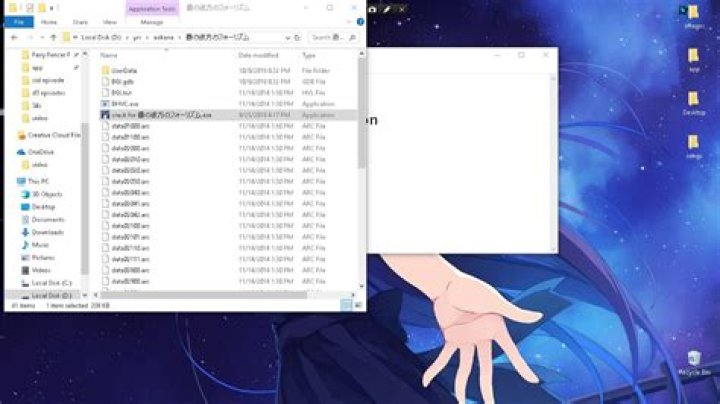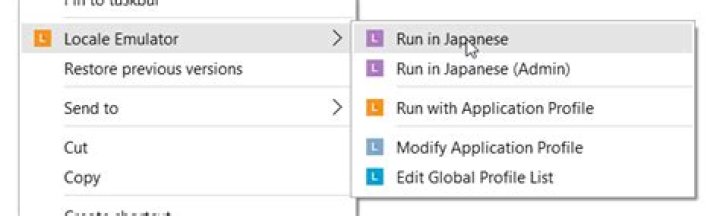
Some applications are showing a strange behaviour when rendering Japanese fonts. The font used for kanji is a Chinese one and it looks really weird, especially at small sizes where it is not anti-aliased.
If I set my display language to Japanese, logout and log back in, the problem is gone.
The requested font (selected in the App UI), is Segoe UI. The actual fonts used for rendering are "MS Mincho" for hiragana and "SimSun" for kanji.
I looked into the registry at Computer\HKEY_LOCAL_MACHINE\SOFTWARE\Microsoft\Windows NT\CurrentVersion\FontLink\SystemLink
And Segoe UI has correct entry:
TAHOMA.TTF,Tahoma MEIRYO.TTC,Meiryo UI,128,96 MEIRYO.TTC,Meiryo UI MSGOTHIC.TTC,MS UI Gothic MSJH.TTC,Microsoft JhengHei UI,128,96 MSJH.TTC,Microsoft JhengHei UI MSYH.TTC,Microsoft YaHei UI,128,96 MSYH.TTC,Microsoft YaHei UI MALGUN.TTF,Malgun Gothic,128,96 MALGUN.TTF,Malgun Gothic MINGLIU.TTC,PMingLiU SIMSUN.TTC,SimSun GULIM.TTC,Gulim YUGOTHM.TTC,Yu Gothic UI,128,96 YUGOTHM.TTC,Yu Gothic UI SEGUISYM.TTF,Segoe UI Symbol SimSun is listed, but MS UI Gothic and YaHei has those characters.
Bad rendering:
The problem can be in the applications you are using, choosing the wrong font because your locale is English, or it can be with Windows caching the wrong font.
A very old solution, which might still work, is to create a file named 火.txt (or similar if this is not Japanese, as I don't know either one) and save it to your desktop and then reboot. The logic here is that when Windows boots it will cache the right font.
Another old method is to change the system locale to Japanese and then back to English, without reboot, which probably works by invalidating the fonts cache.
A more modern solution is to trick applications into thinking that they were launched in Japanese locale. A utility which simplifies this is the free Locale Emulator.